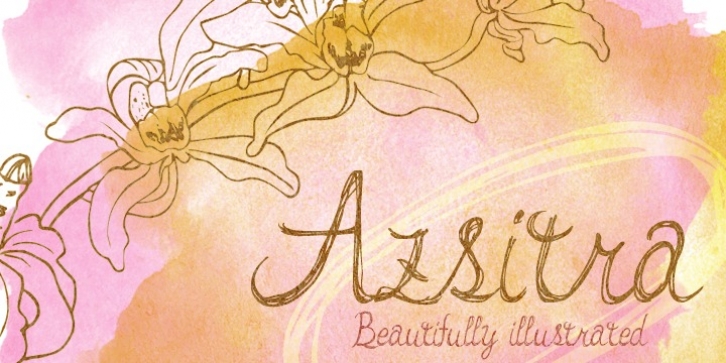
Natsuko Hayashida
Okaycat
Okaycat JAPAN proudly presents “
Azsitra
”! Newly released,
Azsitra
is a beautiful handwritten script. Unique texturing & style make this font unforgettable.
Azsitra
sits well in any design environment adding a gentle illustrated look!